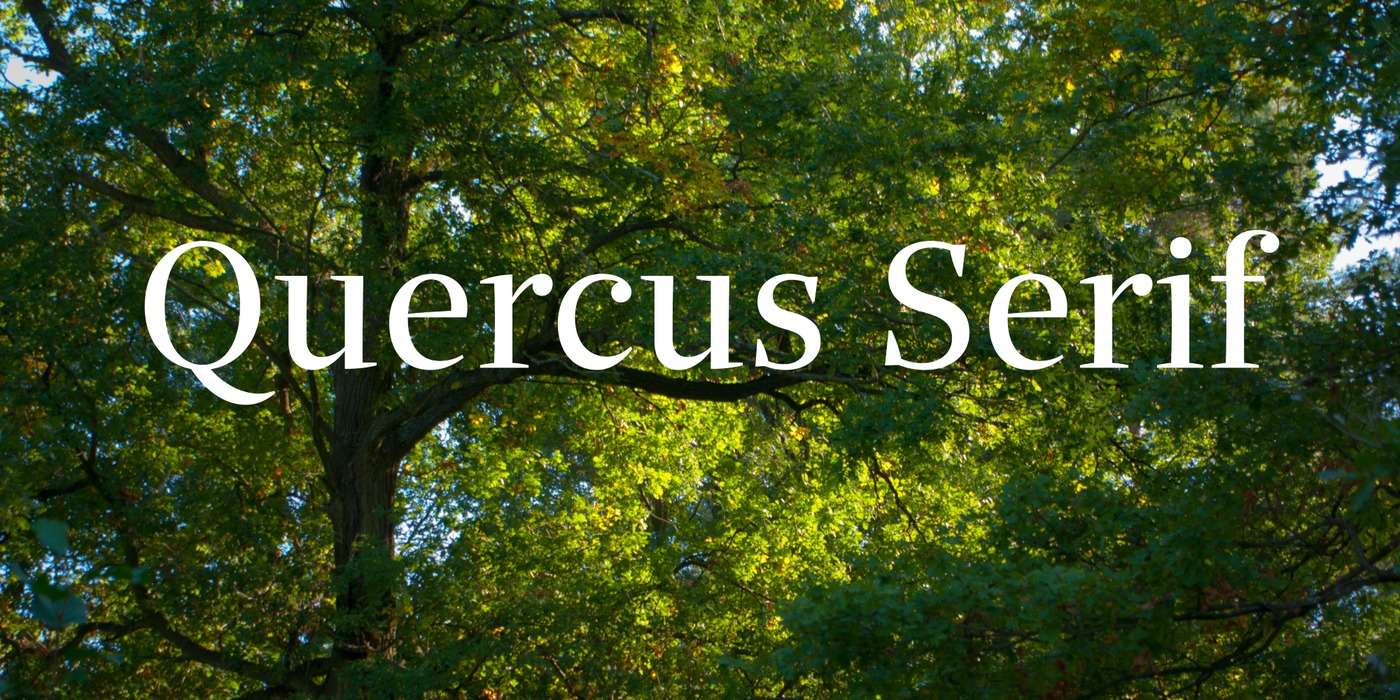
Quercus Serif Font Family
Quercus Serif Font Family is a clean and thoughtfully built typeface that works seamlessly for both professional branding and everyday creative uses. Quercus Serif is characterised by open, yet a little bit condensed drawing with sufficient spacing so that the neighbouring letters never touch. It has eight interpolated weights with respective italics. Their fine gradation allows to find an exact valeur for any kind of design, especially on the web. Quercus serif styles took inspiration from classicistic typefaces with vertical shadows, ball terminals and thin serifs. The italics have the same width proportion as upright styles. This “modern” attitude is applied to both families and calls for use on the same page, e g in dictionaries and cultural programmes. Serif styles marked by “10” are dedicated to textual point sizes and long reading. The sans-serif principle is rather minimalistic, with subtle shadows and thinned joints between curved shapes and stems. Quercus family comprises of the usual functionality such as Small Caps, Cyrillics, diacritics, ligatures, scientific and aesthetic variants, swashes, and other bells & whistles. It excels in informational and magazine design, corporate identity and branding, but it’s very well suited for book covers, catalogues and posters as well.